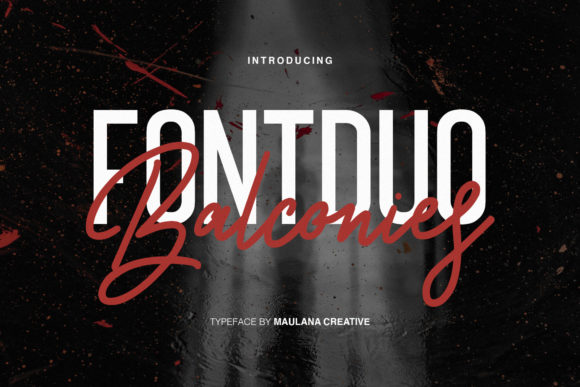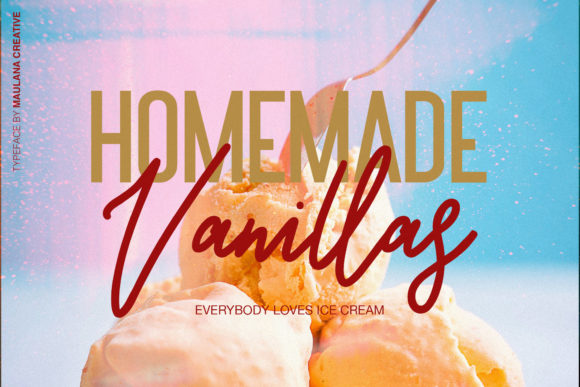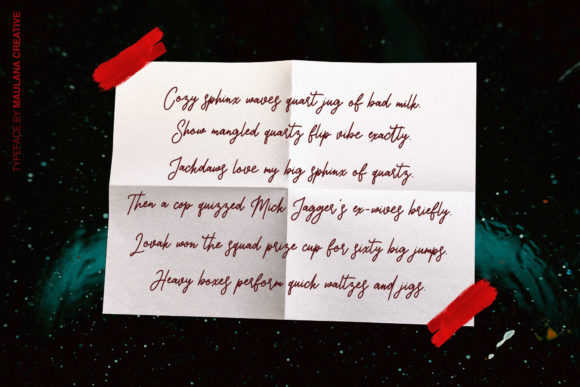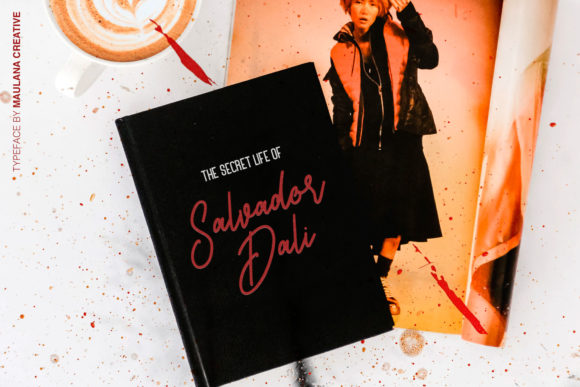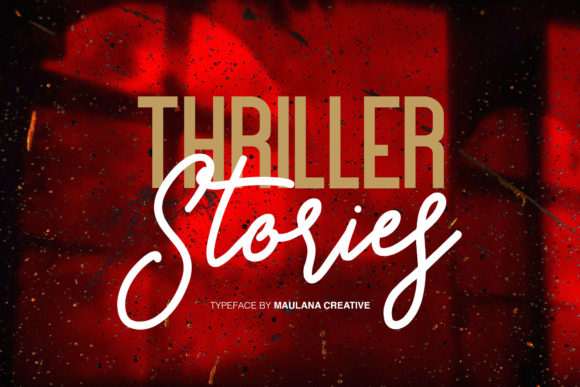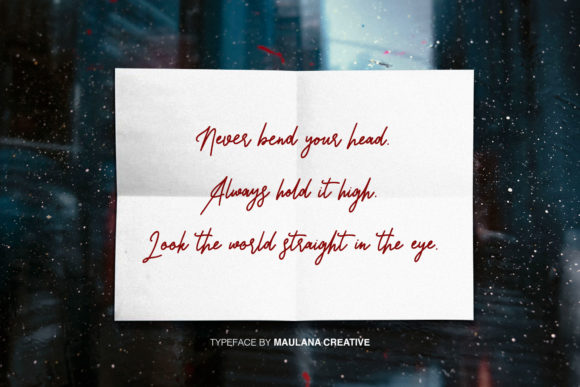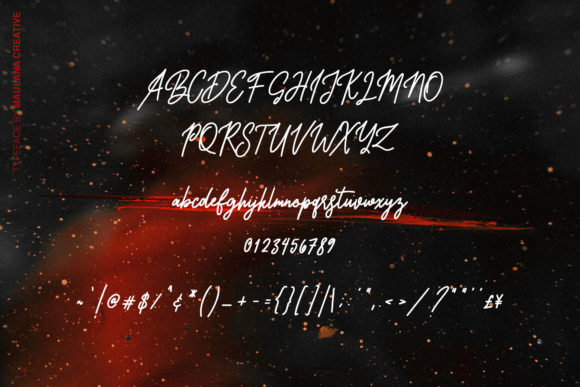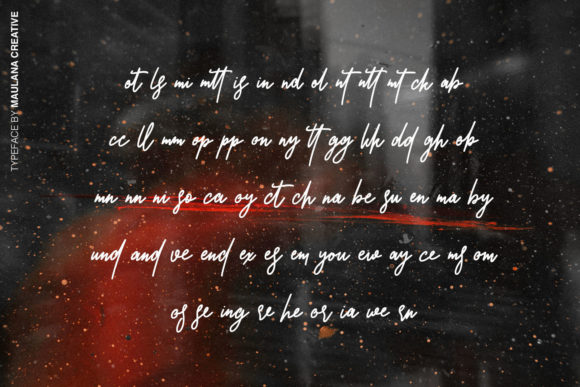
HomeScript FontsBalconies Font Script Fonts Balconies Font FacebookXPinterestWhatsApp Balconies Font Poster 2 Balconies Font Poster 3 Balconies Font Poster 4 Balconies Font Poster 5 Balconies Font Poster 6 Balconies Font Poster 7 Balconies Font Poster 8 About Balconies Font Balconies is a stunning font duo that will give your designs that handcrafted feel. DOWNLOAD ON CREATIVE FABRICAThis font is sold and delivered by Creative Fabrica. Font Canyon may earn a commission if you buy through this link. People also explored Bray Notes Font Thicken Font New Mexico Font Amara Christmas Monogram Font Thanks for the Love Font Stayhere Font Moon Font Flamboyan Font Gloritta Font 283 0 TagsBalconies Font Previous articleBranday FontNext articleLord Elliot Font LEAVE A REPLY Cancel reply Comment: Please enter your comment! Name:* Please enter your name here Email:* You have entered an incorrect email address! Please enter your email address here Website: Save my name, email, and website in this browser for the next time I comment. Personal Use Free Sweet Beautiful Personal Use Free Read more about this font Kumadinya Personal Use Free Read more about this font Lumber Personal Use Free Read more about this font Lazy Sunday Personal Use Free Read more about this font BLOG Where to Buy American Fonts Online in 2024 Where to Buy American Fonts Online: The Ultimate Guide for 2024 Looking for the perfect American font to elevate your design projects? You're in the... How to Install and Use Fonts on Windows, macOS, and Web Projects How to Cut Any Font on Cricut: Convert a Font to SVG (Free) Using Fonts in Digital Marketing: Tips to Strengthen Your Brand Identity